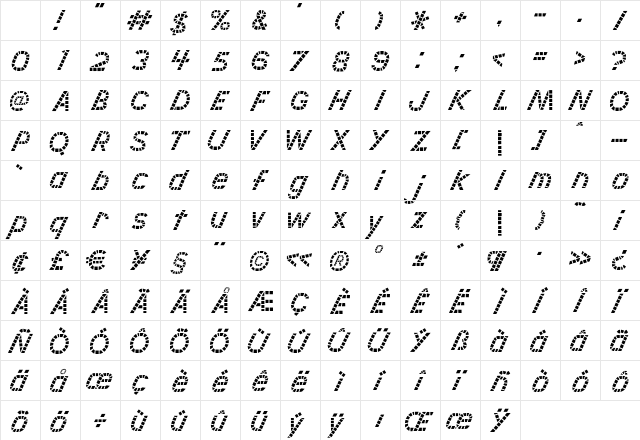
Complete UnionSquare RightSlant glyph index. Displaying only characters natively supported by UnionSquare RightSlant font.
UnionSquare is a composed and adaptable typeface that performs quietly and consistently across a wide range of design contexts.